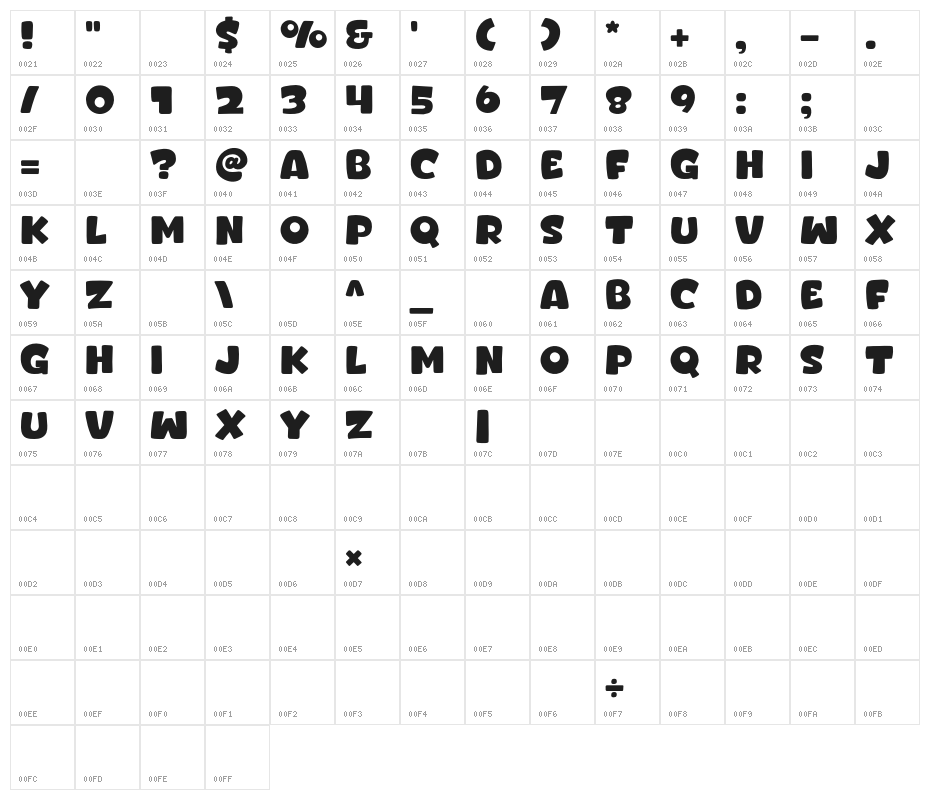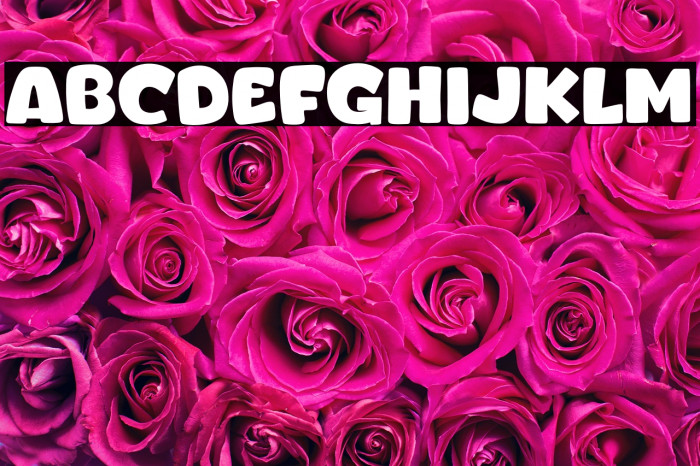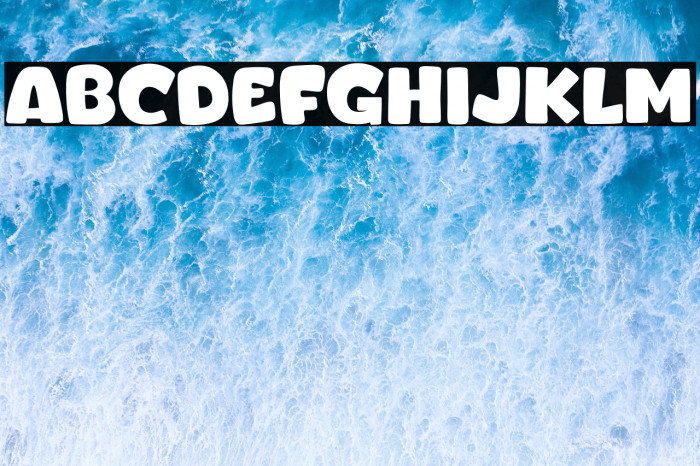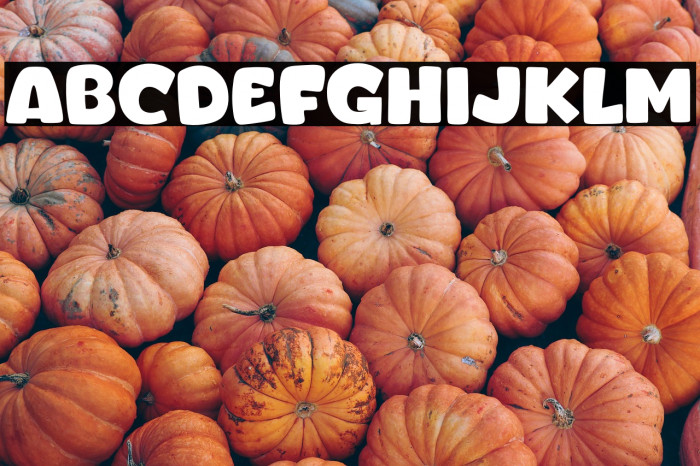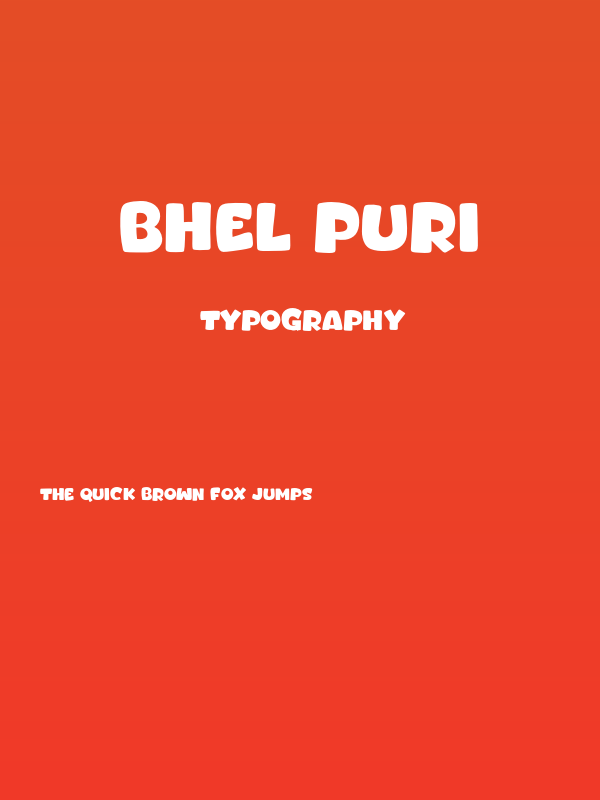
Bhel Puri Font
Bhel Puri Description
This font features a bold and playful design with rounded edges and a chunky appearance. The characters are uniformly thick, giving it a strong presence and making it highly legible. Its whimsical style is reminiscent of hand-drawn or cartoon lettering, adding a sense of fun and creativity. The uppercase and lowercase letters maintain a consistent weight, while the numerals and special characters are designed to match the overall aesthetic. This font's unique style makes it stand out, making it ideal for projects that require a touch of humor or lightheartedness.
| Proposed Projects | Ideal for children's books, comic strips, playful branding, and event posters. |